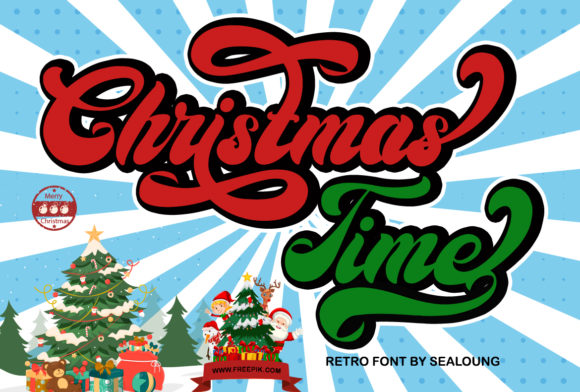
Are you tired of the same old boring fonts for your holiday cards and designs? Look no further! Introducing Christmas Time Font, the perfect choice for adding a touch of nostalgia and warmth to your creations.
With its flowing and festive handwritten style, Christmas Time Font captures the essence of the holiday season like no other. Whether you're designing a retro logo, crafting a heartfelt message, or simply seeking to spread some holiday cheer, this font is guaranteed to make a lasting impression.
Created by the talented Sealoung, Christmas Time Font brings together the charm of vintage typography with a modern twist. Its intricate letterforms and delicate strokes evoke feelings of joy, celebration, and nostalgia. Each character is meticulously crafted, ensuring that every word you write with this font is an artistic masterpiece.
But Christmas Time Font is not just about aesthetics. It is also highly functional and versatile, making it a must-have for any designer or e-commerce entrepreneur. The font family is script, allowing for seamless integration into various design projects. From retro logos to elegant wedding invitations, this font will effortlessly elevate your creations and make them stand out from the crowd.
Imagine the delight of your loved ones when they receive a holiday card featuring Christmas Time Font. Its warm and inviting look will instantly evoke feelings of coziness and happiness. It's not just a font; it's a heartfelt message delivered with style and grace.
But don't limit yourself to just holiday-themed designs. Christmas Time Font is suitable for a wide range of applications throughout the year. Its versatility allows you to use it for branding, packaging, social media graphics, and so much more. Let your creativity soar as you explore the endless possibilities this font offers.